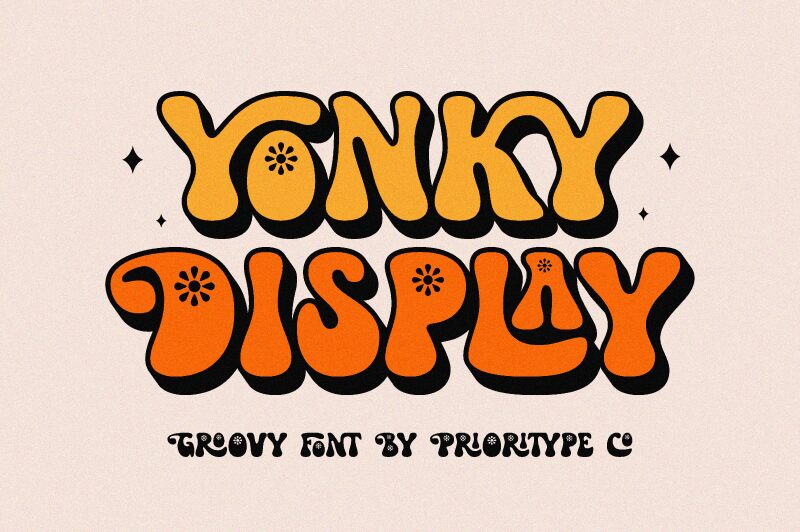
Yonky Display font, crafted by Prioritype Co, is a bold display typeface that embodies a groovy aesthetic. Its exaggerated curves and eye-catching flourishes make it perfect for creating retro-inspired designs. This free font stands out with its playful and dynamic appearance, making it ideal for adding a whimsical touch to posters, logos, or creative projects.
Due to its bold style and unique character, Yonky Display is an excellent choice for designers looking to infuse their work with personality and flair. Whether you're aiming for vintage charm or a fun modern twist, this font can enhance your design's visual impact. Download the Yonky Display font today to bring distinctive style and bold expression to your creative endeavors.